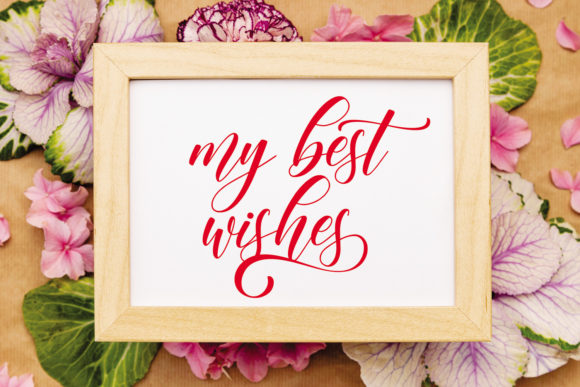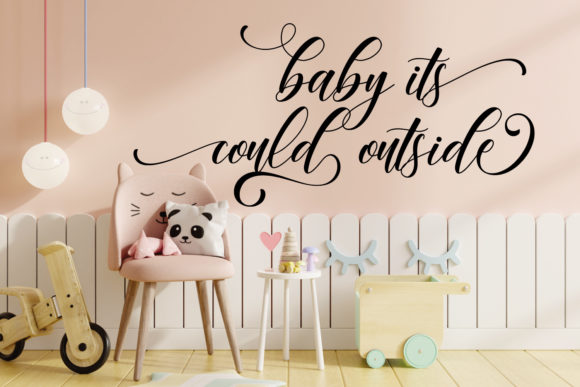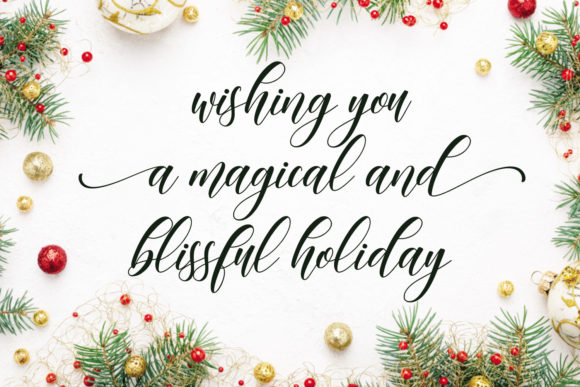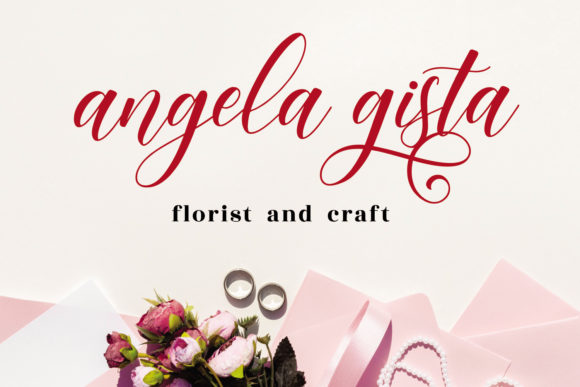
Beloved Christmas Font
About Beloved Christmas Font
Beloved Christmas is a flowing handwritten font, described by an elegant touch, perfect for your favorite projects. This font is PUA encoded which means you can access all of the glyphs and swashes with ease!